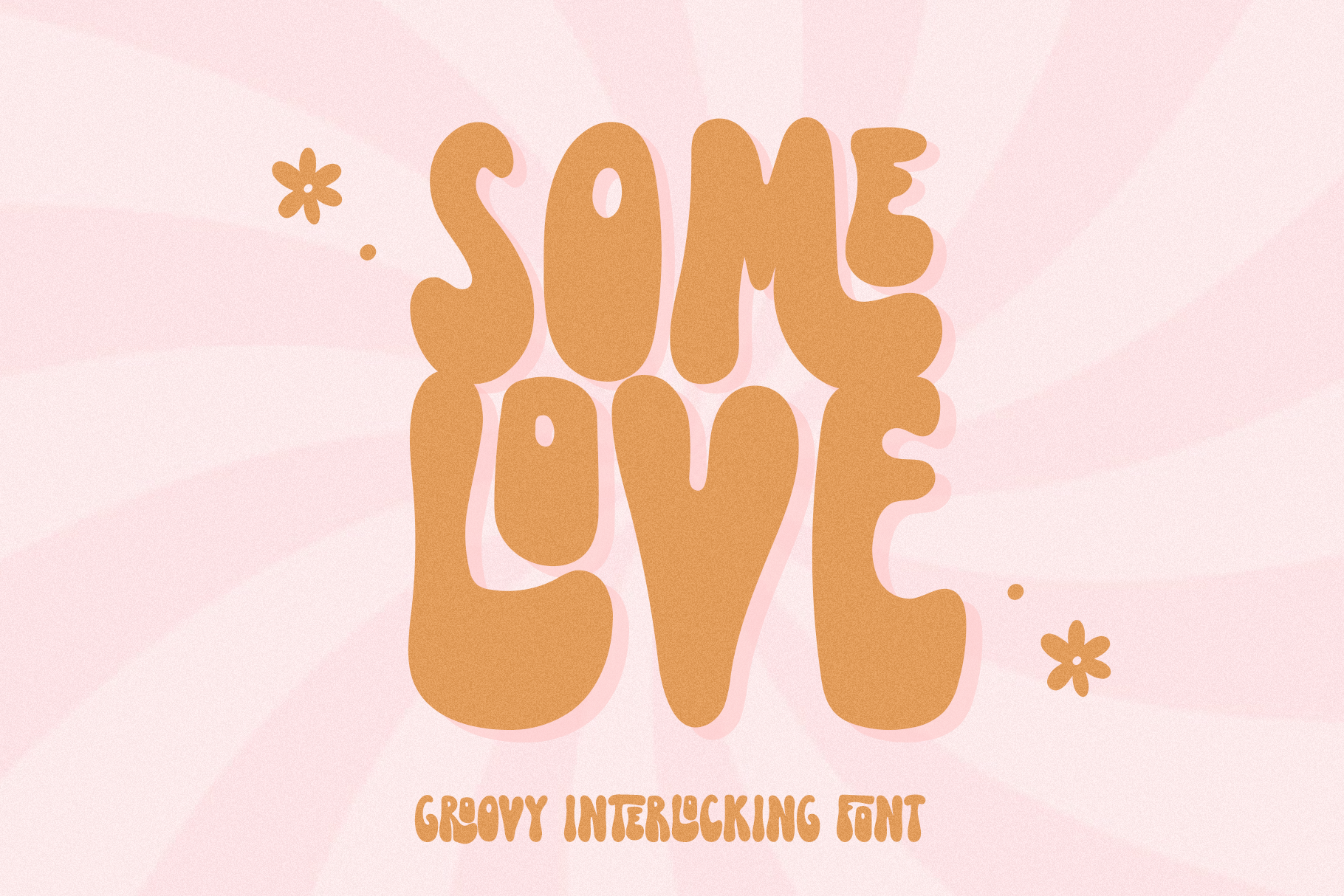
Some Love | Groovy Retro Font
Some Love is a hand-drawn font with a bunch of fun, interlocking ligatures!
This font is perfect for creating retro shirt designs, stickers, phone cases, doormats, instagram quotes, branding, logos and more!
There are interlocking pairs for the following letters: FA, FE, FI, FO, FR, HA, HE, HI, HO, HT, KA, KE, LA, LE, LI, LO, MA, ME, MO, OT, RA, RE, RK, RO, TA, TE, TH, TI, TO, TR, TT
Not sold on the interlocking text but still love the retro bubbly-ness of Some Love? Simply turn off ligatures for a more standard look! It's like having two fonts in one!